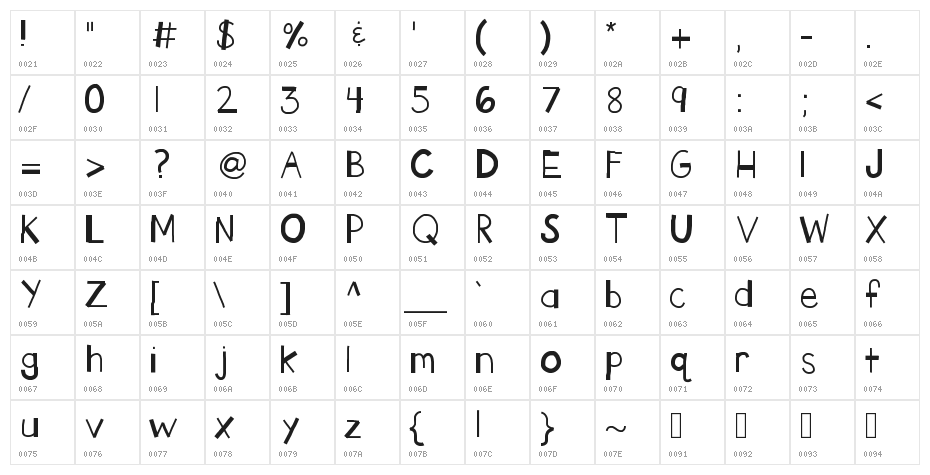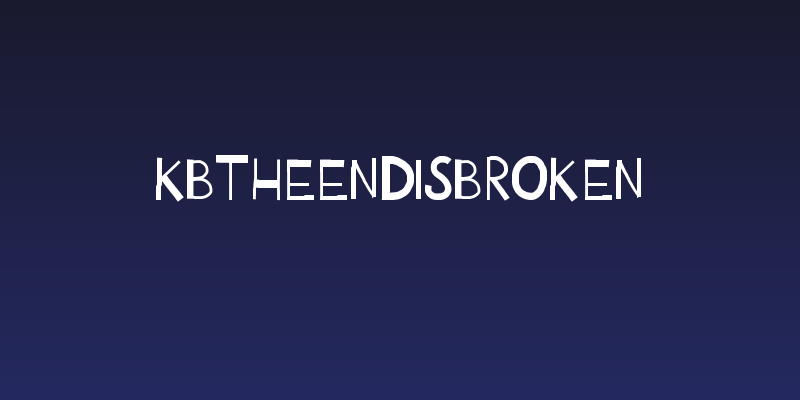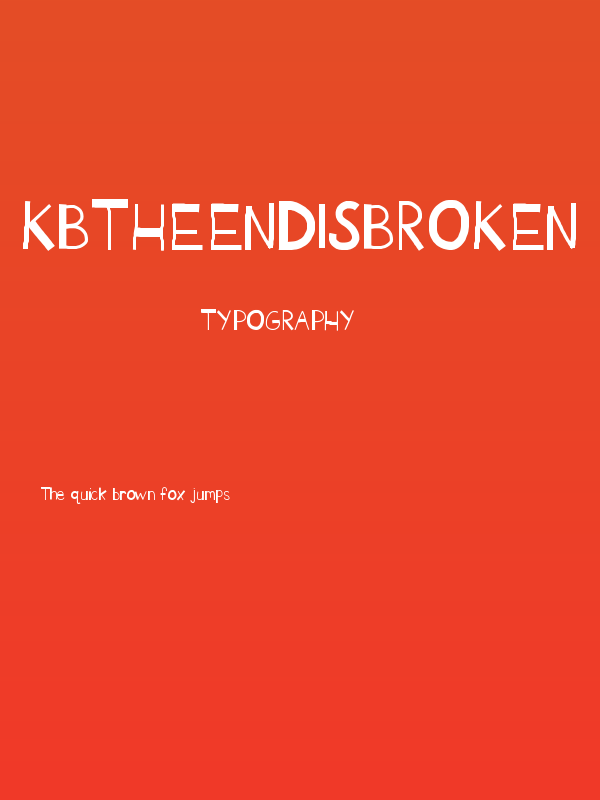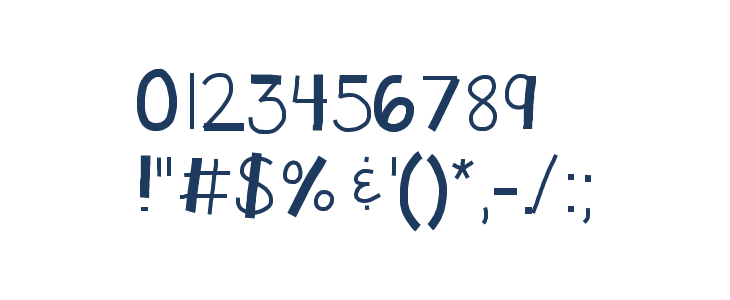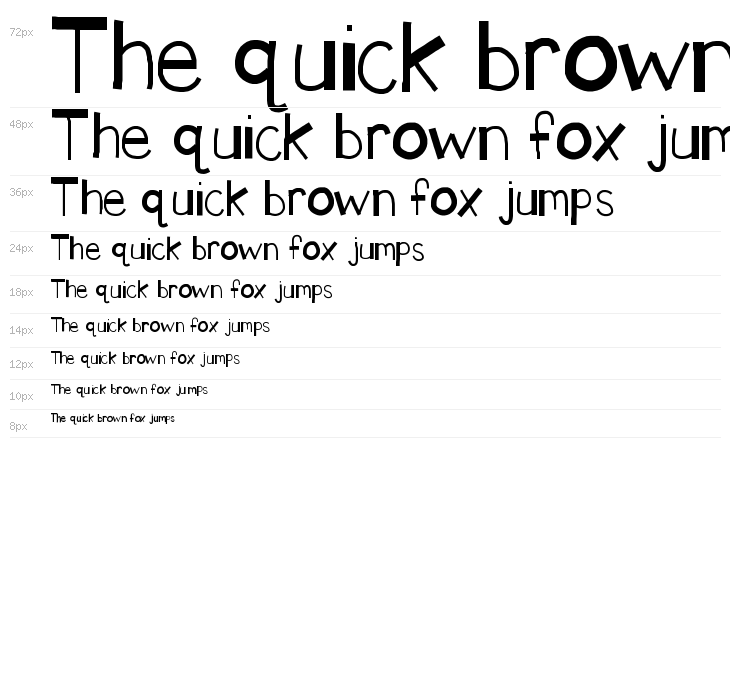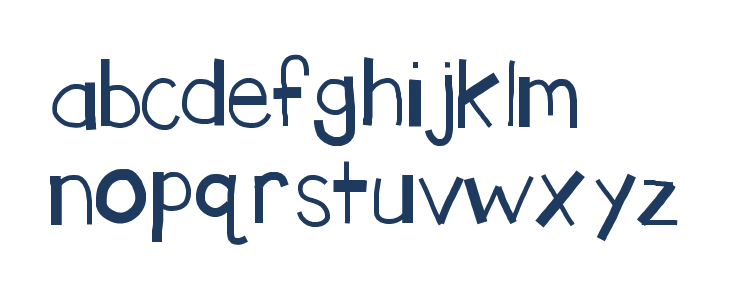
KBTHEENDisBROKEN Font
KBTHEENDisBROKEN Description
This font features a playful and quirky design with irregular shapes and varying stroke widths, giving it a hand-drawn appearance. The uppercase letters are bold and slightly uneven, while the lowercase letters maintain a whimsical style with unique character forms. Numbers are distinct and follow the same playful theme, making them easily recognizable. Special characters are creatively designed, adding to the font's overall charm. The font's style is suitable for projects that require a fun and informal touch, such as children's books, posters, or creative branding.
| Overall Style | Playful, Quirky |
| Proposed Projects | Ideal for children's books, playful posters, creative branding, and informal invitations. |